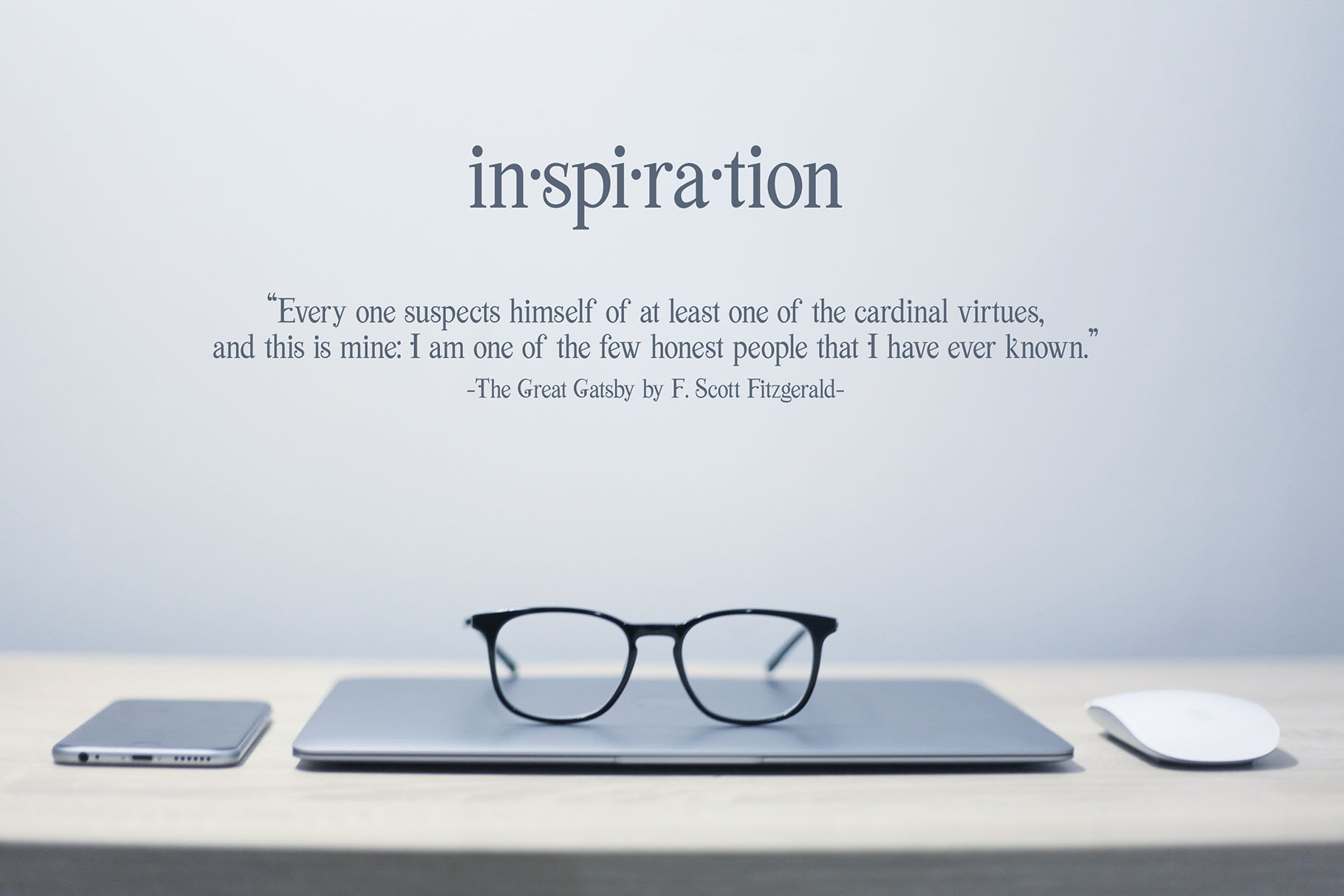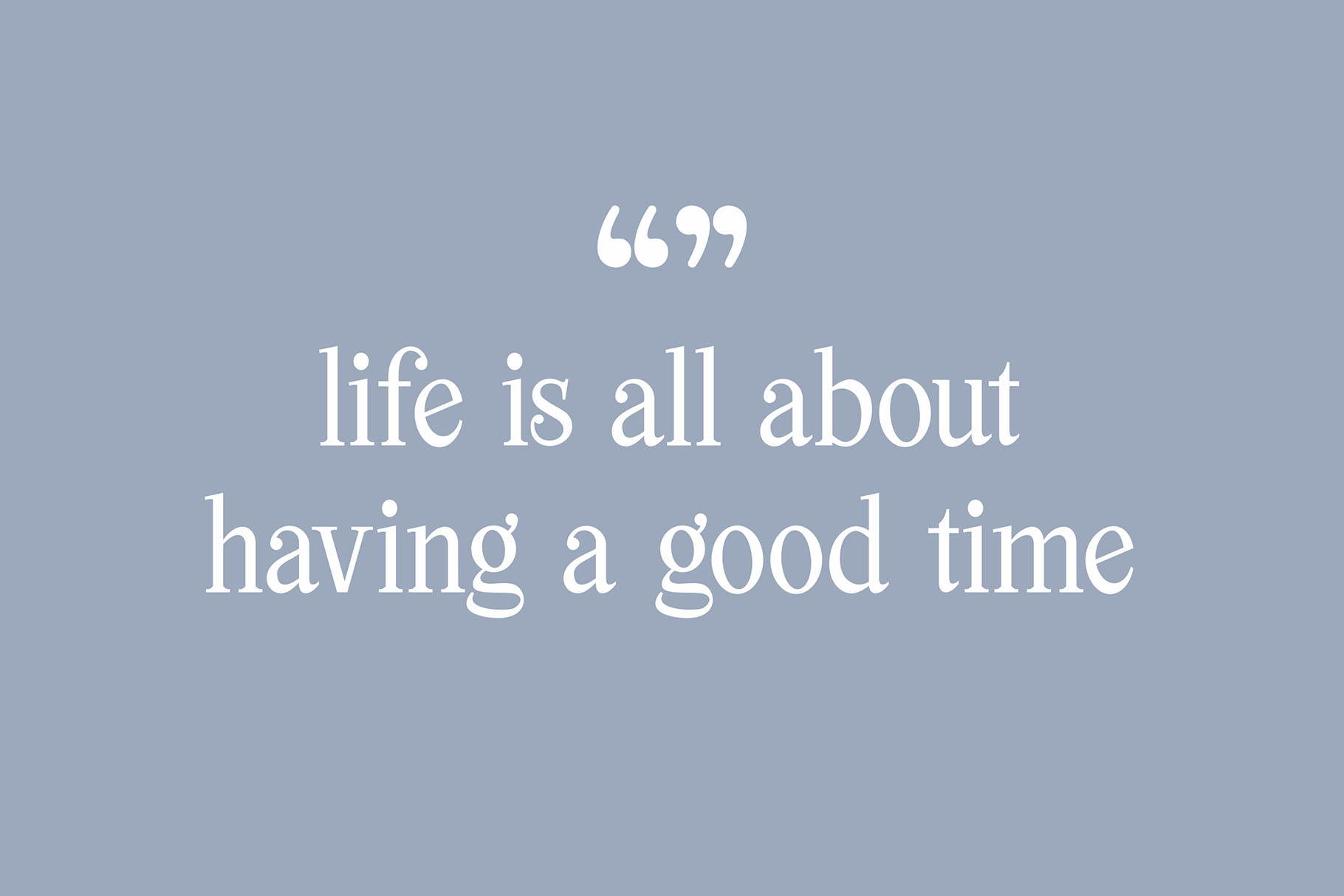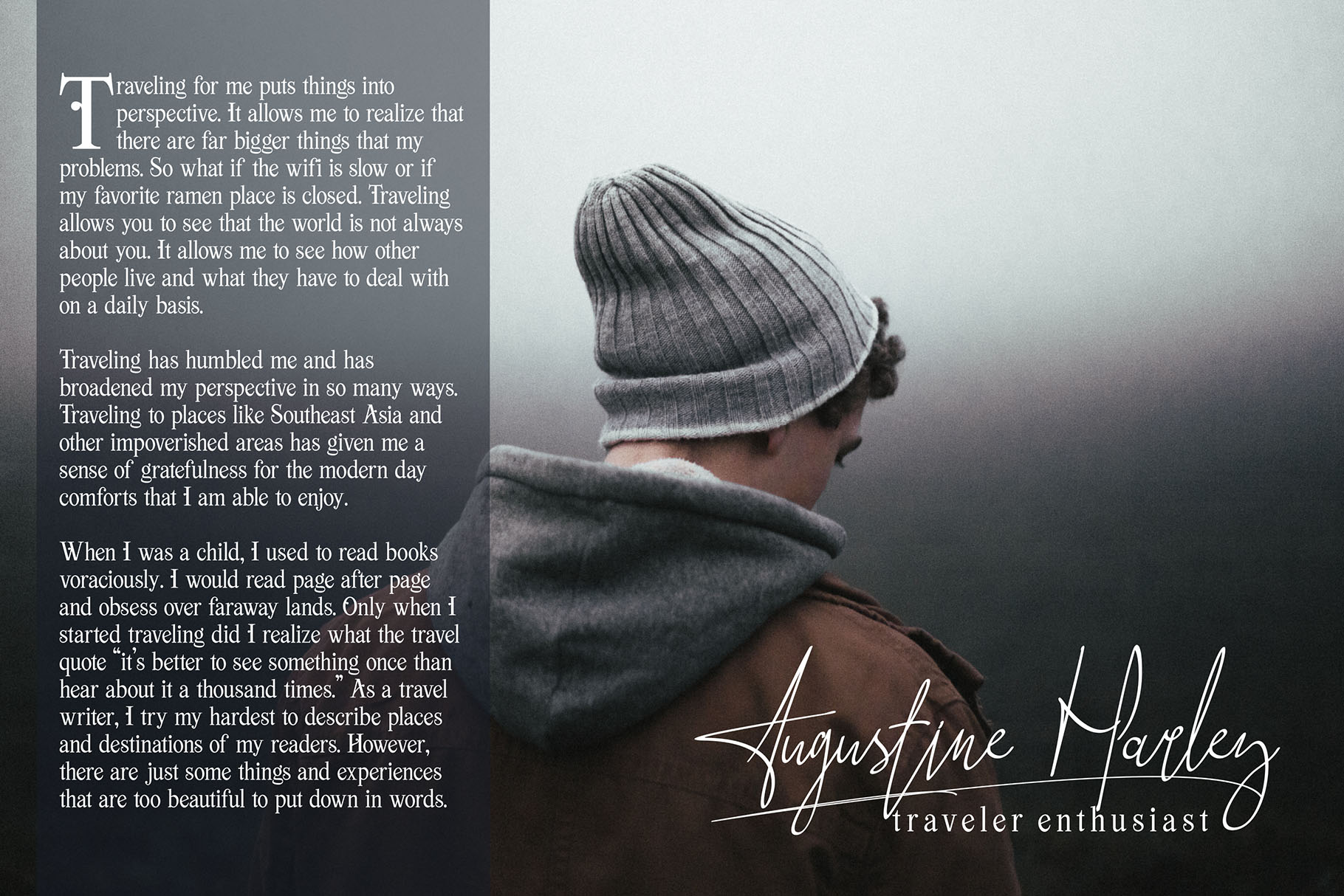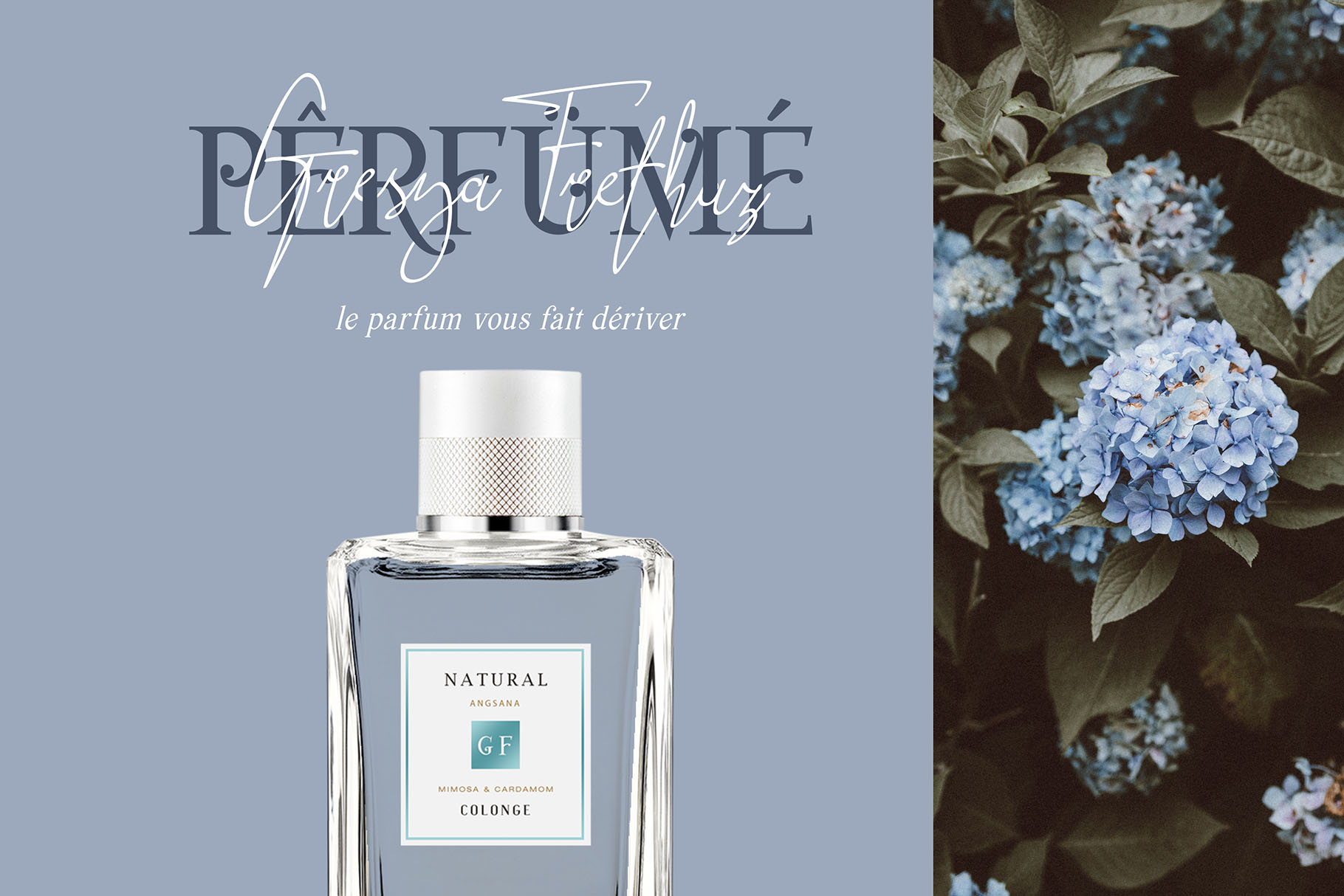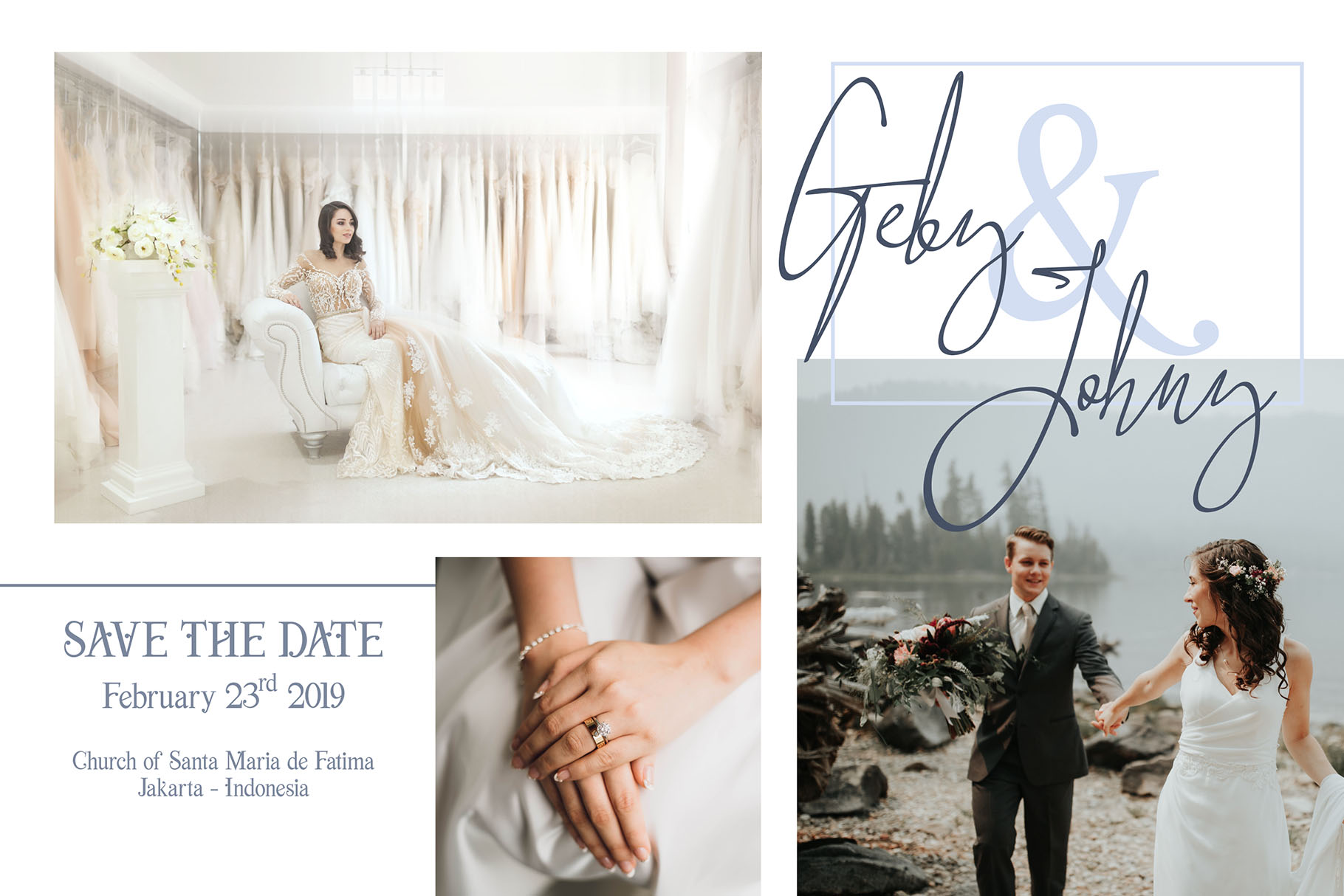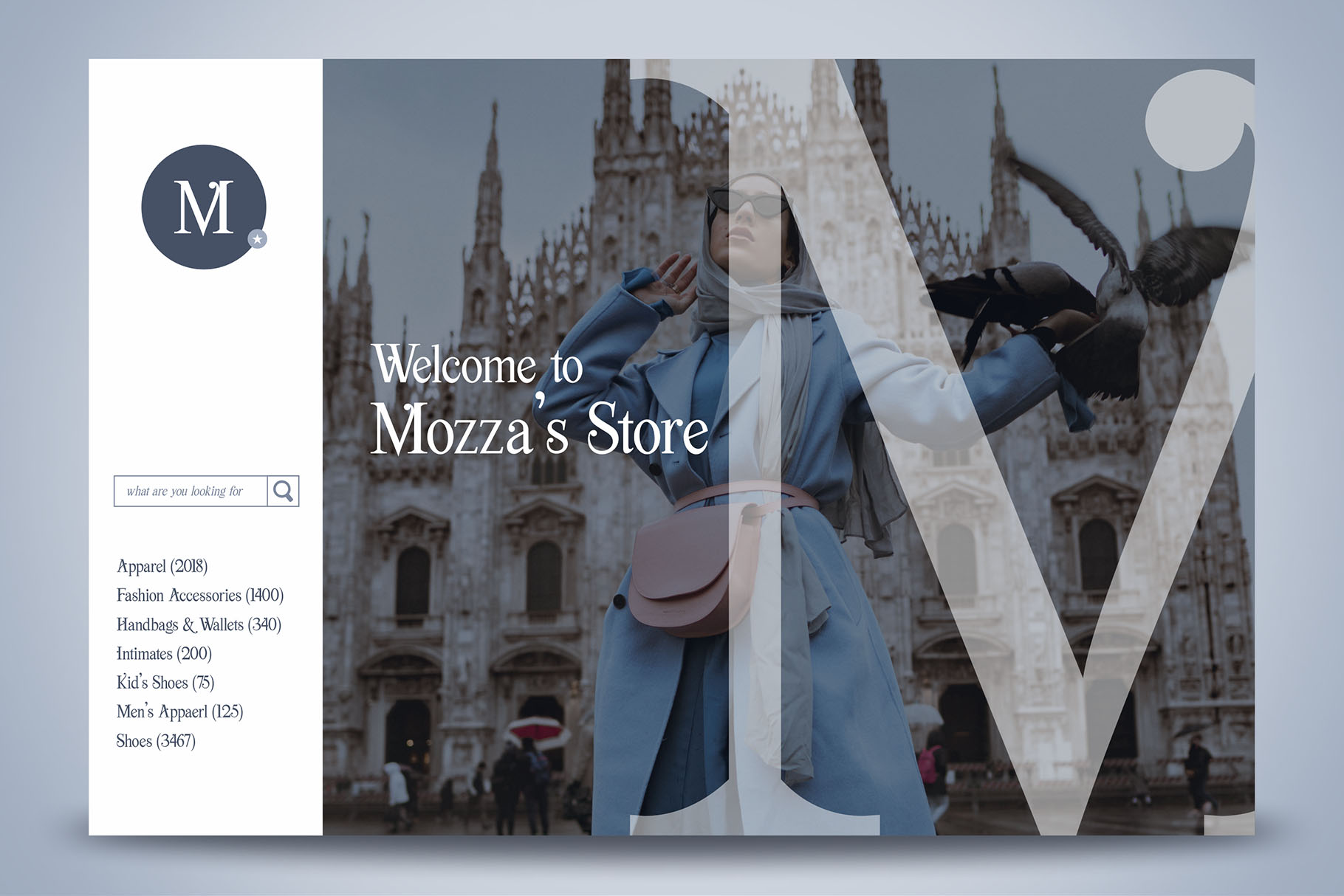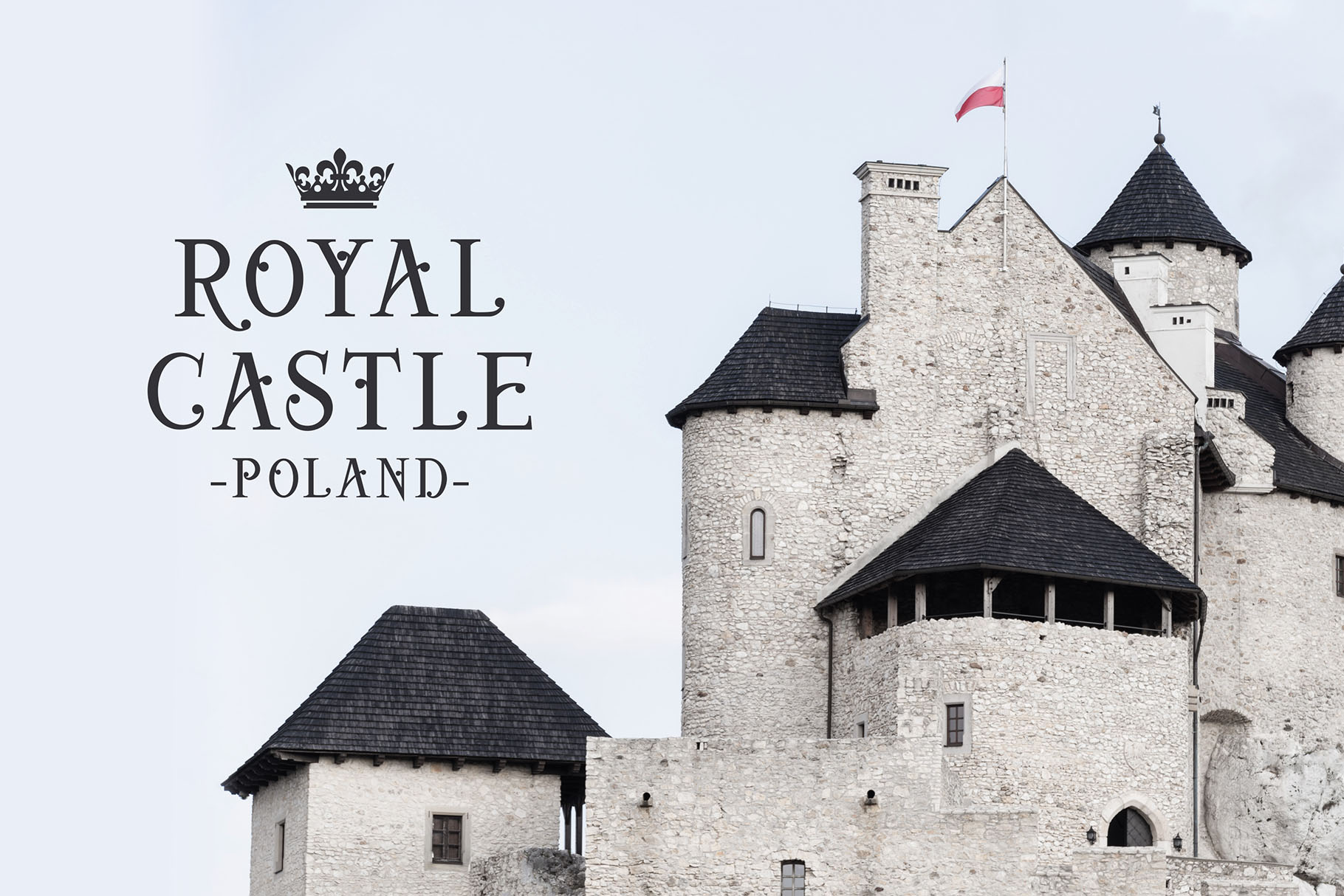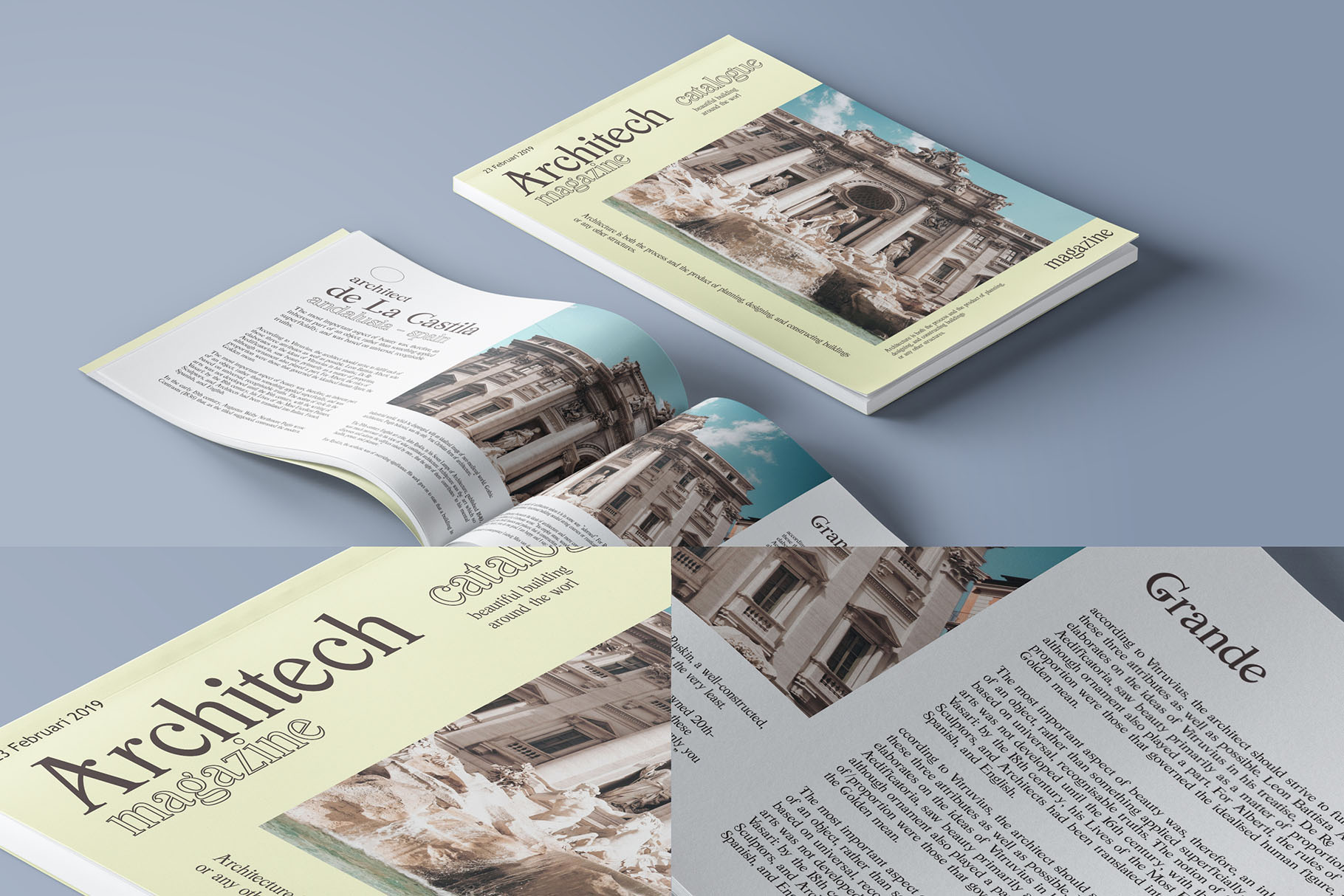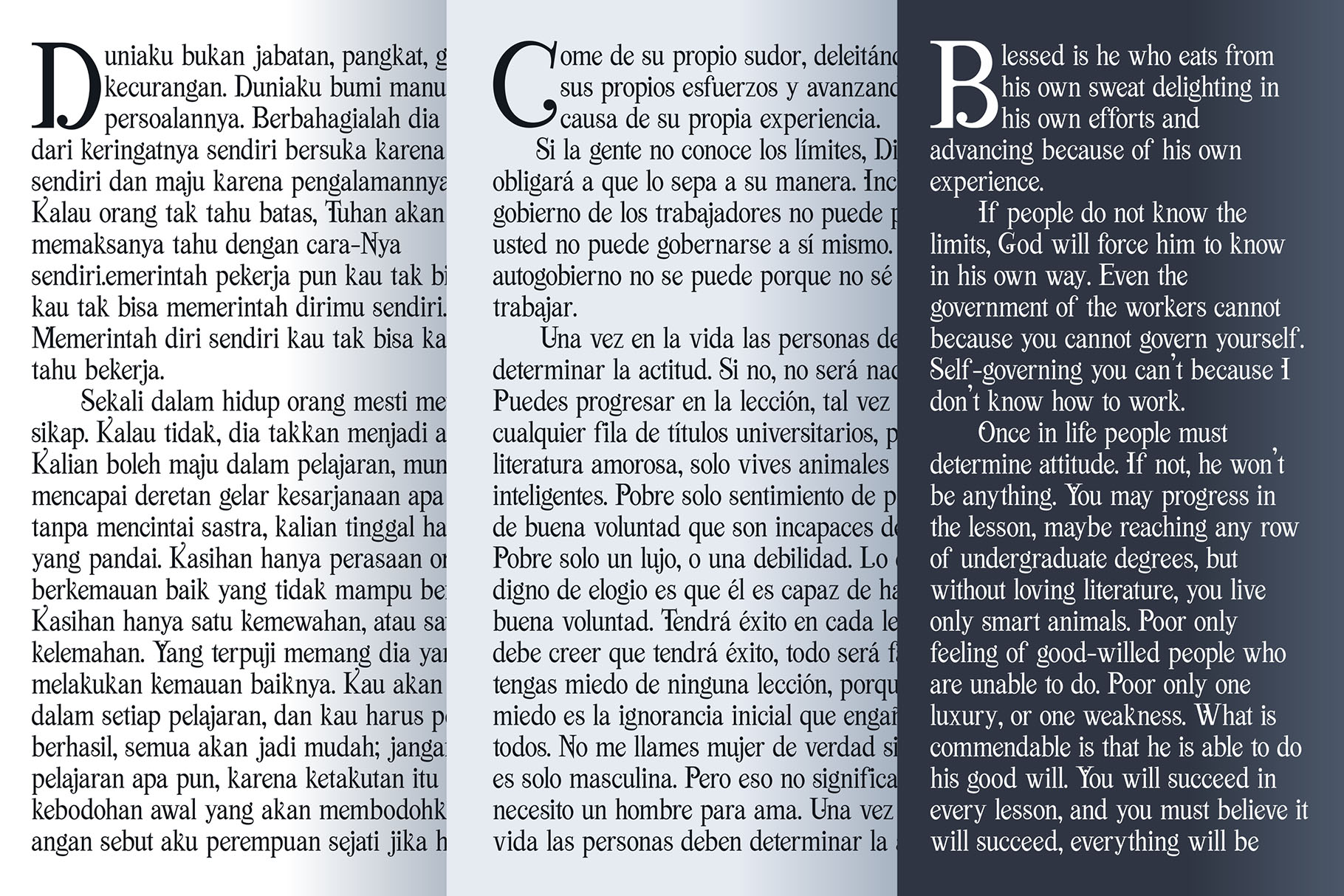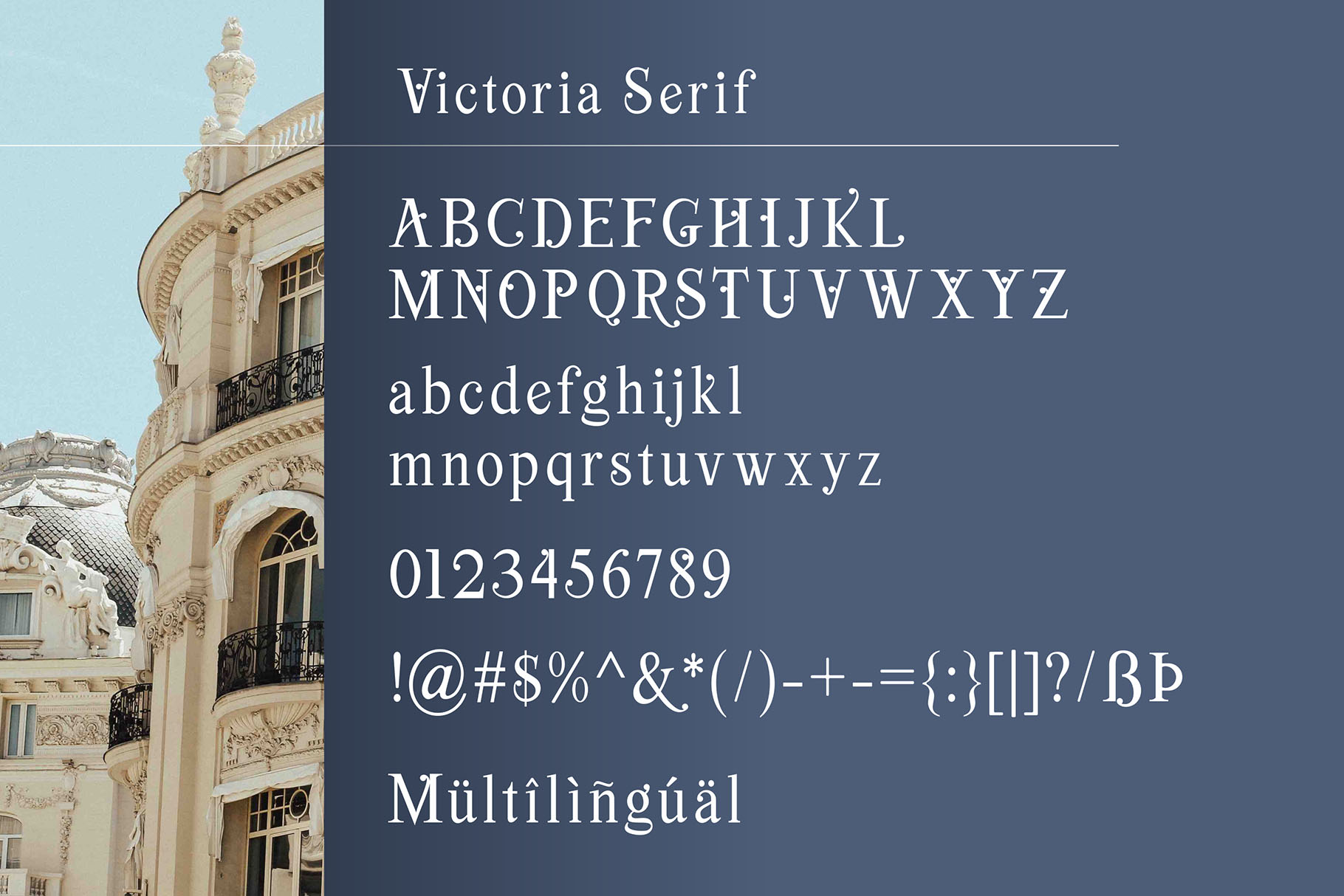
Viktoria Classic Font Duo for Elegant Visual Stories
Viktoria Classic Font Duo is a beautiful pairing of serif and signature styles designed for creative projects that need elegance, softness, and a classic visual mood. With Viktoria Serif and Viktoria Signature working together, this font duo gives designers a graceful way to build layouts that feel polished, romantic, and memorable.
This font is made for projects where typography needs to do more than fill space. It helps create a mood. Whether you are designing a wedding invitation, a refined logo, a quote poster, a book cover, or a social media graphic, Viktoria brings a timeless character that feels warm, personal, and carefully composed.
Viktoria also includes a dedicated Viktoria Signature Swash file, giving your design an added decorative touch when you want a more expressive finish. Use the serif style for structure, the signature style for personality, and the swash for special accents that make your composition feel more complete.
Viktoria is classic, graceful, and romantic. The serif style brings a refined foundation, making it useful for headlines, titles, branding elements, and editorial-style layouts. It gives your words a composed and elegant presence without feeling too heavy.
The signature style adds a handwritten, personal quality. It is ideal for names, short phrases, brand marks, invitation details, and decorative text. When paired with the serif, it creates a balanced contrast between polished structure and expressive movement.
The overall personality of Viktoria feels soft, beautiful, and premium. It works well for designs that need a feminine touch, a wedding-inspired mood, or a classic editorial aesthetic. It can feel luxurious in a logo, heartfelt in a quote, and romantic in an invitation suite.
Best Use Cases
Viktoria is especially suitable for quotes, logos, posters, websites, wedding invitations, books, social media designs, and more. Its combination of serif and signature styles makes it flexible for both personal and professional creative work.
Use Viktoria for wedding stationery such as invitations, save-the-date cards, menu cards, welcome signs, thank-you notes, and monogram-style details. The font duo gives wedding layouts a soft and elegant voice while still keeping the design readable and polished.
For branding, Viktoria can support boutique logos, beauty brands, florists, photographers, lifestyle businesses, handmade product labels, and creative studio identities. The serif can hold the main brand name, while the signature style can add a refined personal accent.
For content creators and digital product sellers, Viktoria works beautifully in quote graphics, printable posters, Instagram templates, Pinterest pins, website banners, and product mockups. It helps your design look more curated without requiring a complicated typography system.
Designers love font duos because they make visual hierarchy easier. With Viktoria, you already have two complementary voices: a classic serif for structure and a signature style for expression. This helps you create elegant layouts faster, especially when working on branding, wedding stationery, or social media content.
Viktoria is also practical for buyers who need a complete look from one product. Instead of searching for separate fonts that may not feel connected, you can use Viktoria Serif and Viktoria Signature together to build a consistent identity. The combination feels intentional, which is important for logos, invitation suites, and premium presentation graphics.
The swash file adds another layer of detail. Use it carefully for decorative emphasis, especially on special words, initials, invitation accents, or quote layouts. It can help a simple design feel more personal and beautifully finished.
For brand designers, Viktoria offers a refined way to create visual contrast. For crafters, it can bring an elegant mood to printable products and handmade goods. For social media designers, it adds softness and personality to quote posts, story graphics, and lifestyle content.
Viktoria already includes a serif and signature pairing, so it can stand confidently on its own. For larger brand systems or extended layouts, you can pair it with a clean supporting typeface or another Figuree Studio font that adds contrast.
Choose Viktoria when your design needs beauty, balance, and a classic atmosphere that feels thoughtfully made.